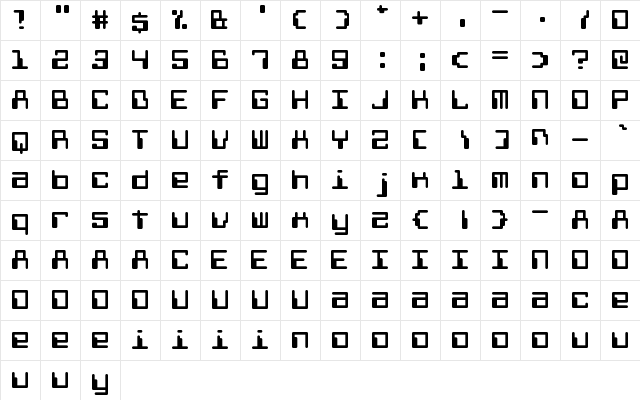
Computo Monospace Regular
| Designer | GameDevDan |
Design Context for Computo Monospace Typeface
Computo Monospace uses fixed-width spacing throughout, giving it the structured, systematic character associated with coding environments and technical documentation.
A natural fit for code editors, technical documentation, developer-focused branding, and terminal-inspired UI.